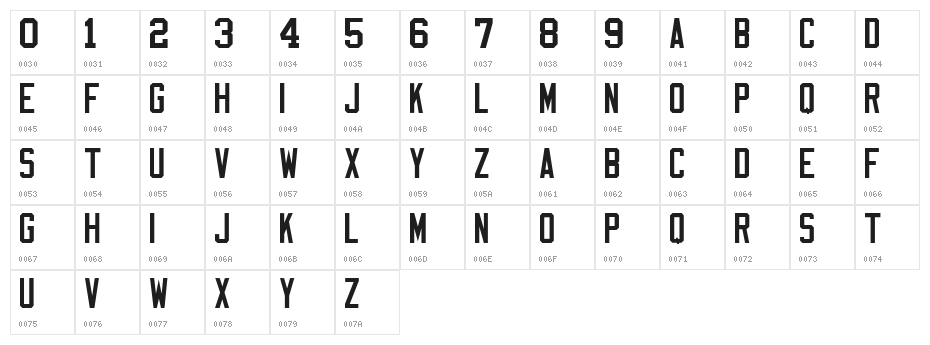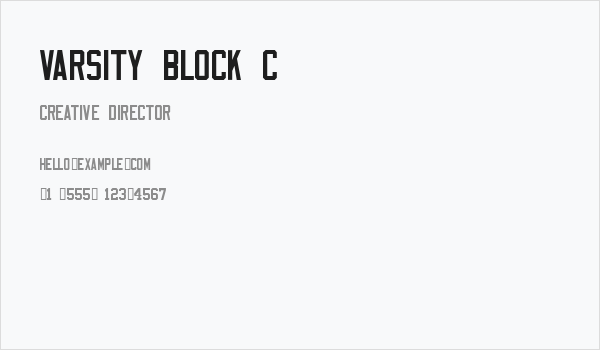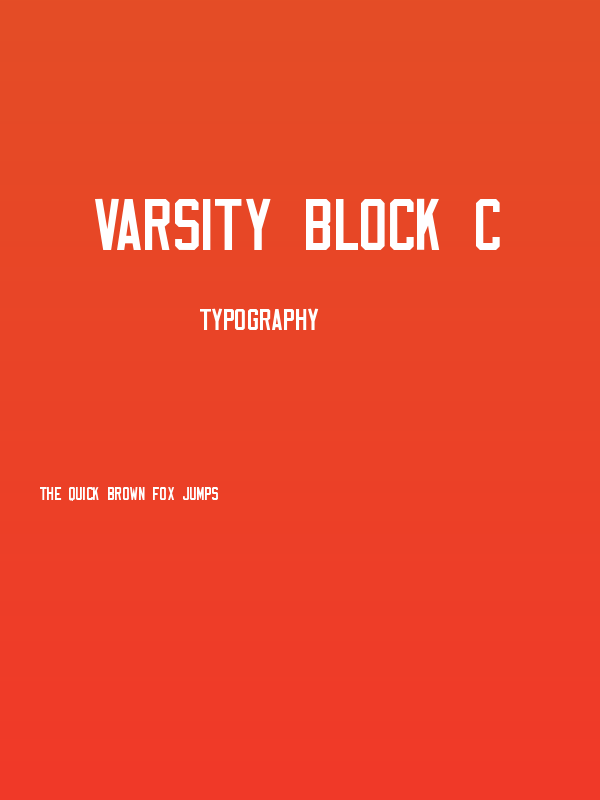
Varsity Block C Font
| Stile generale | Athletic, Bold, Geometric |
| Progetti proposti | Ideal for sports team branding, school spirit merchandise, event posters, and athletic apparel. |